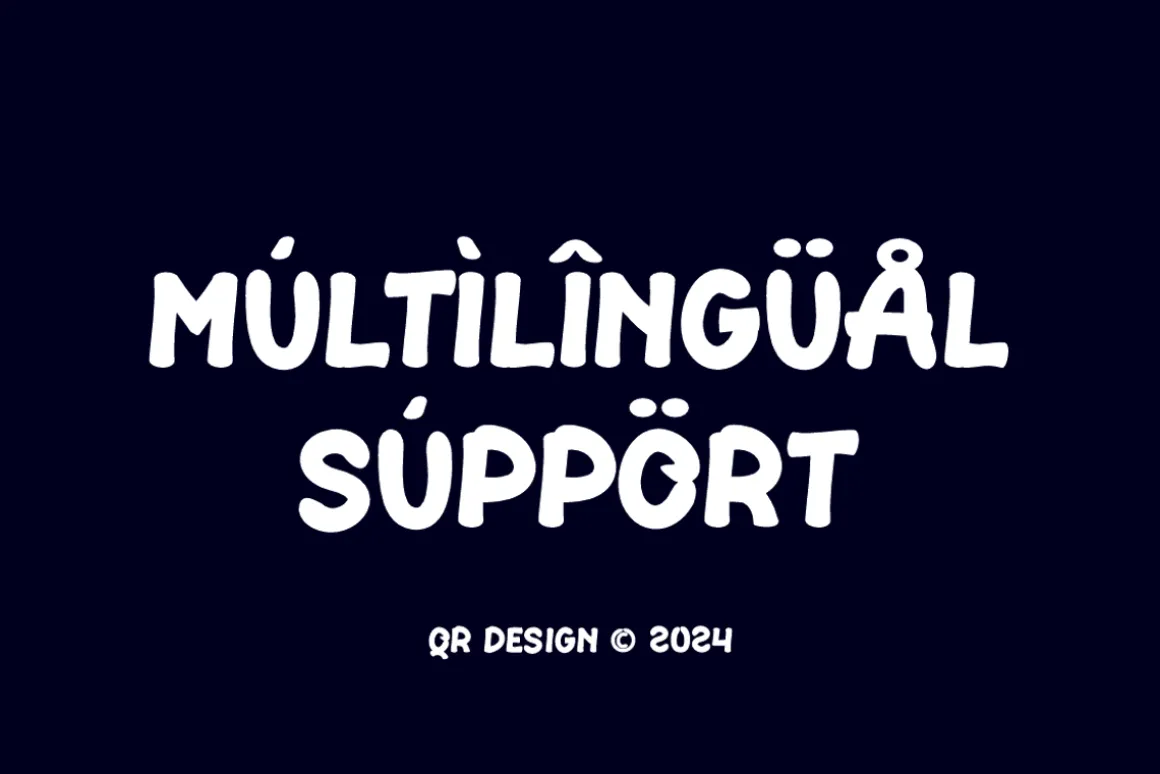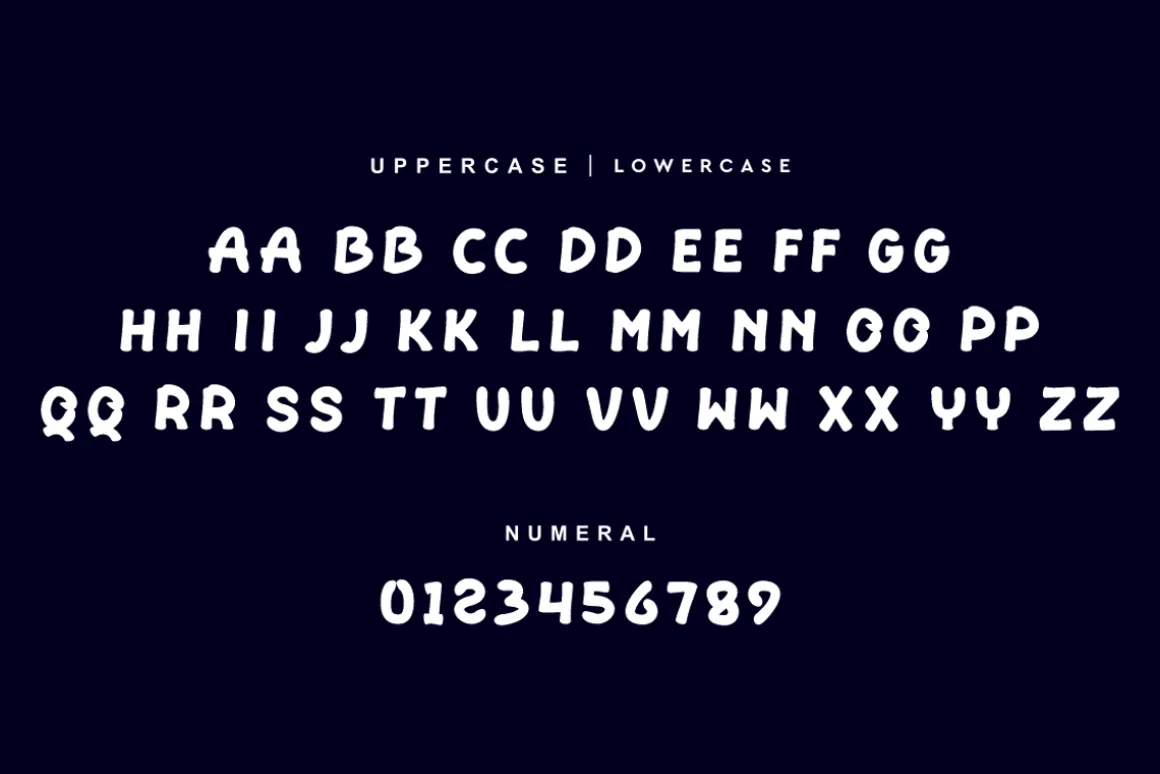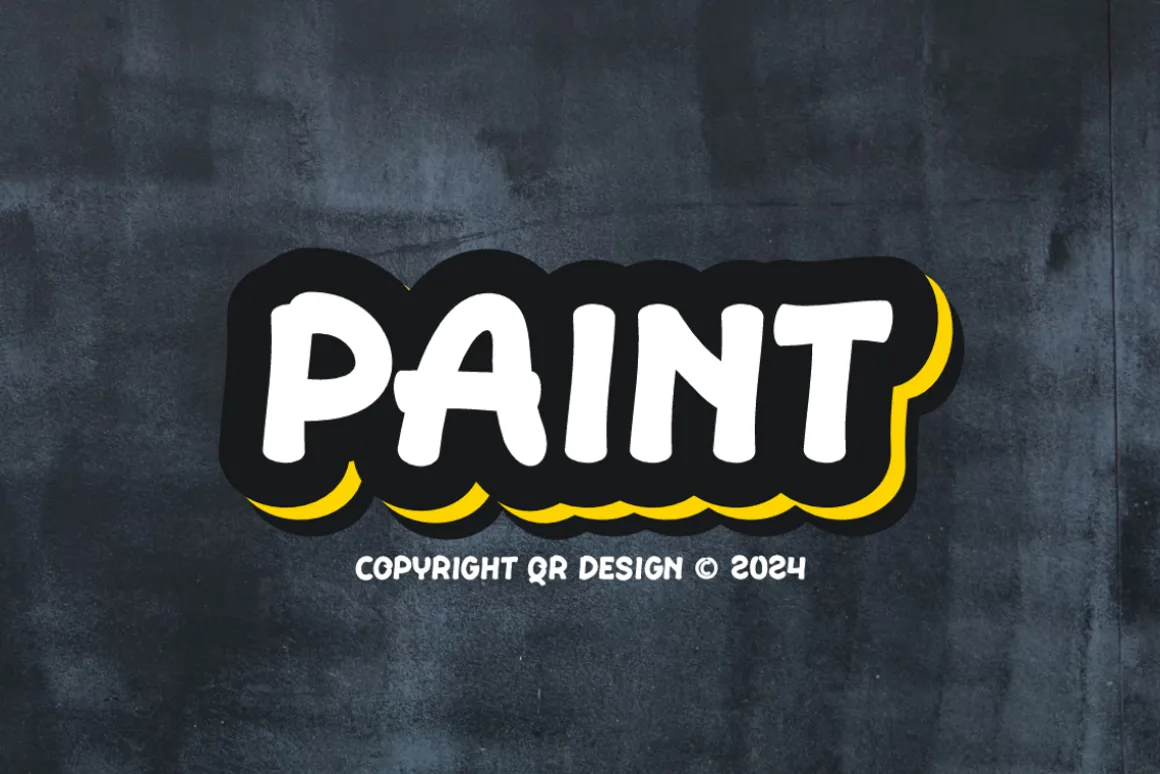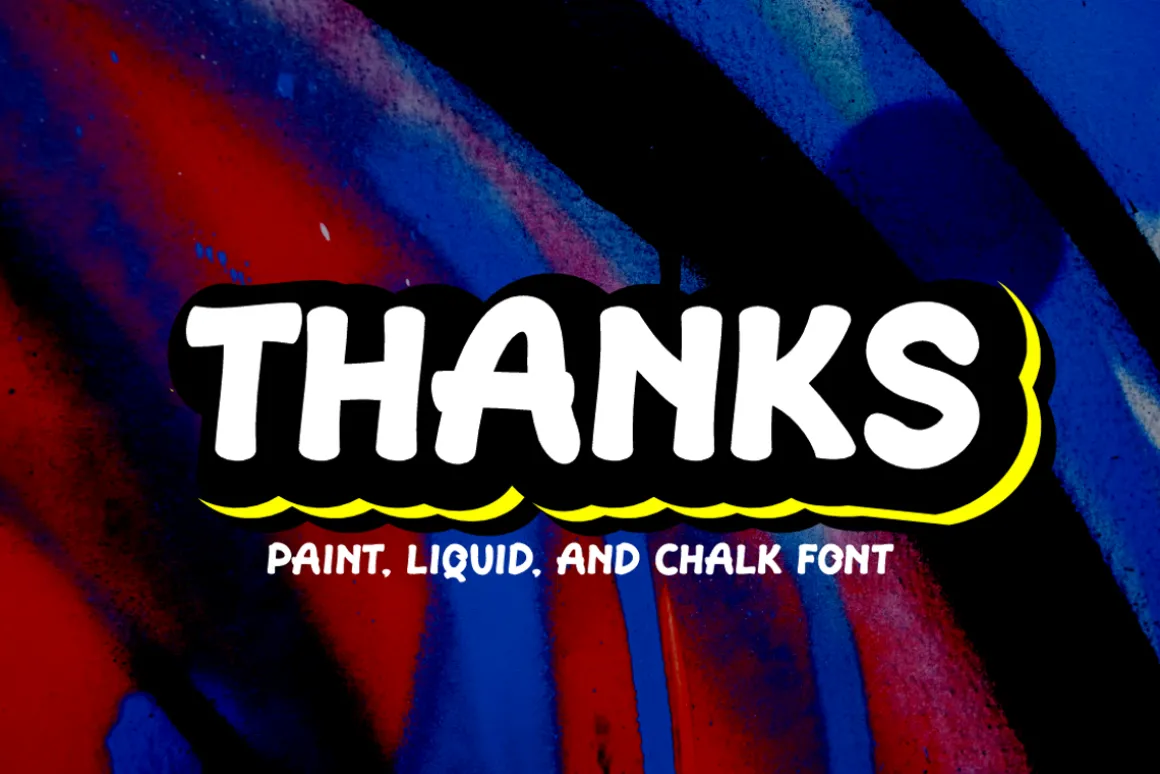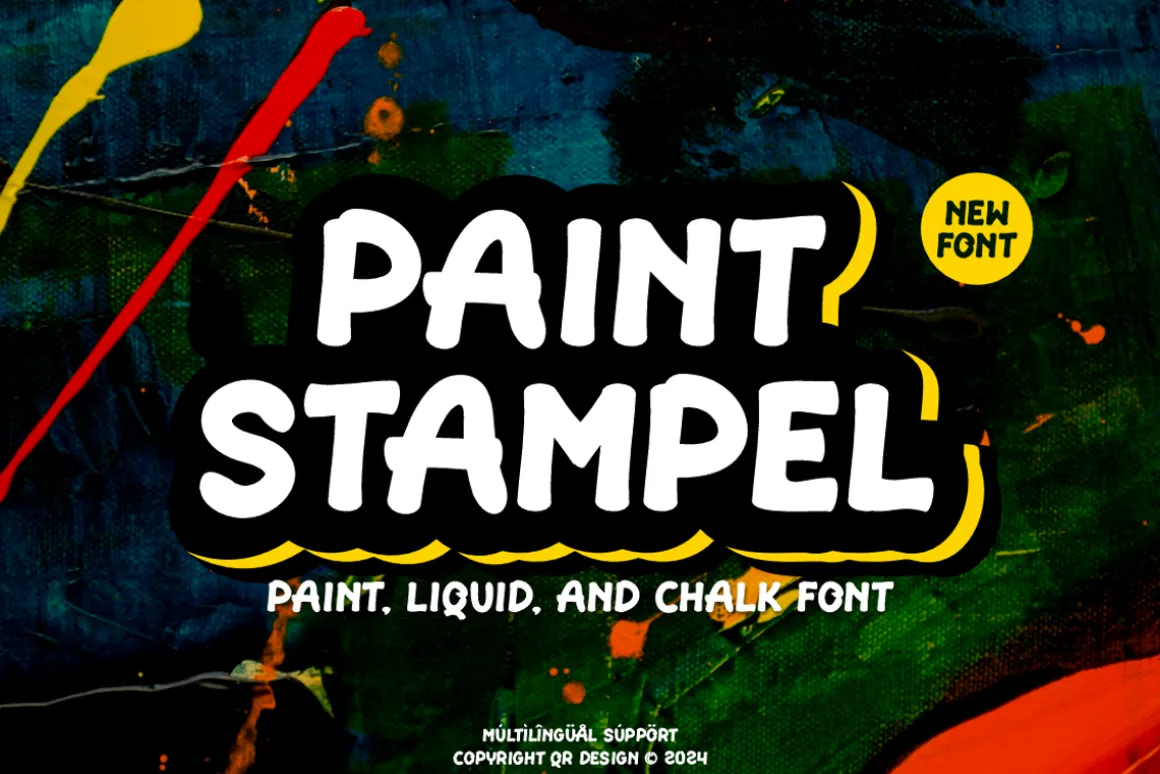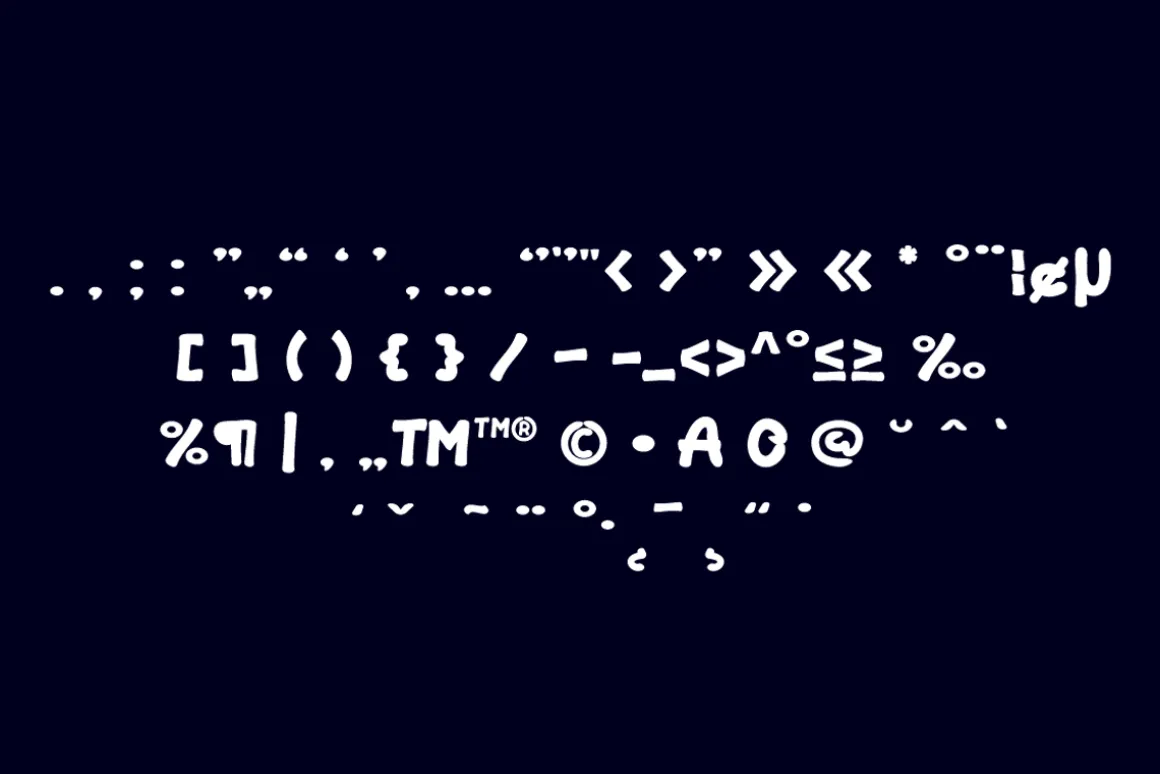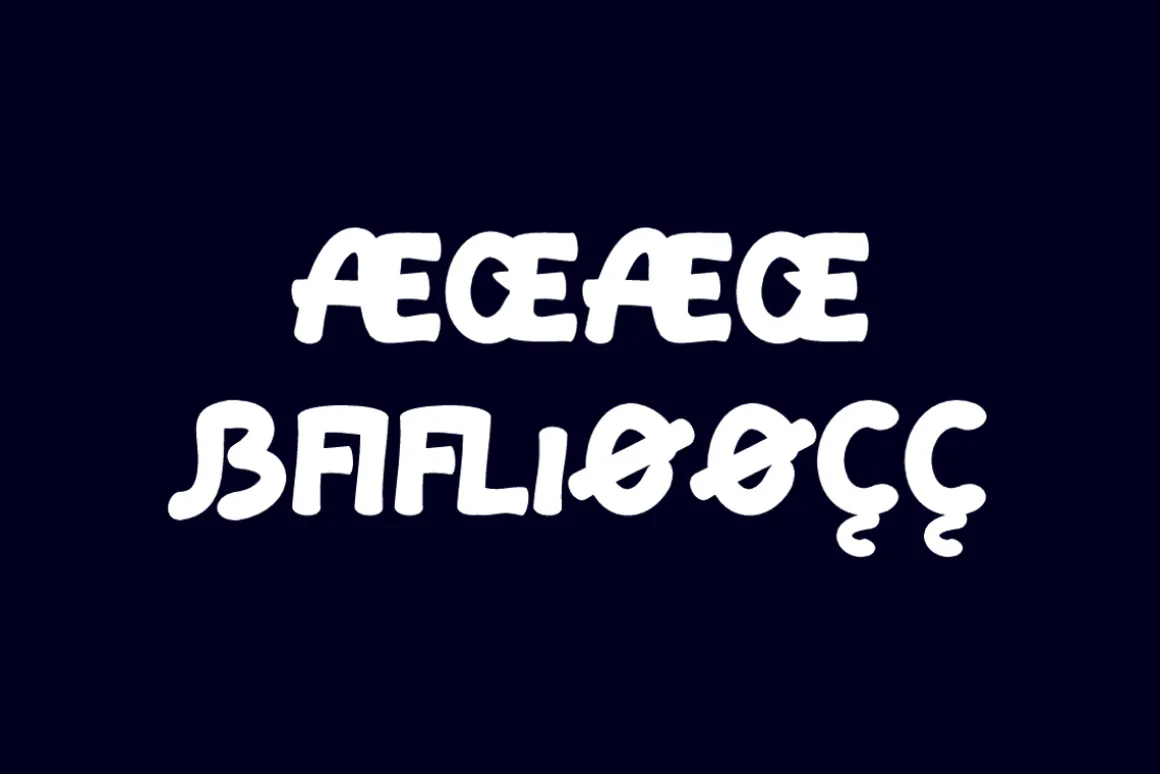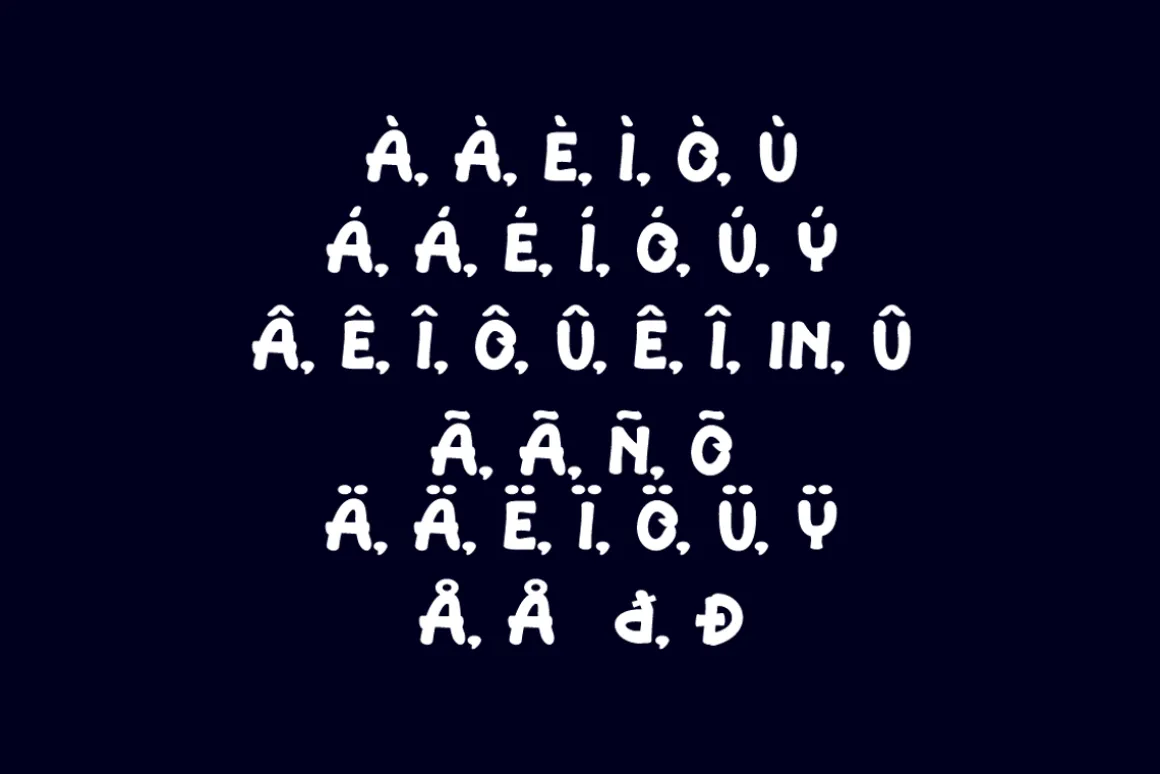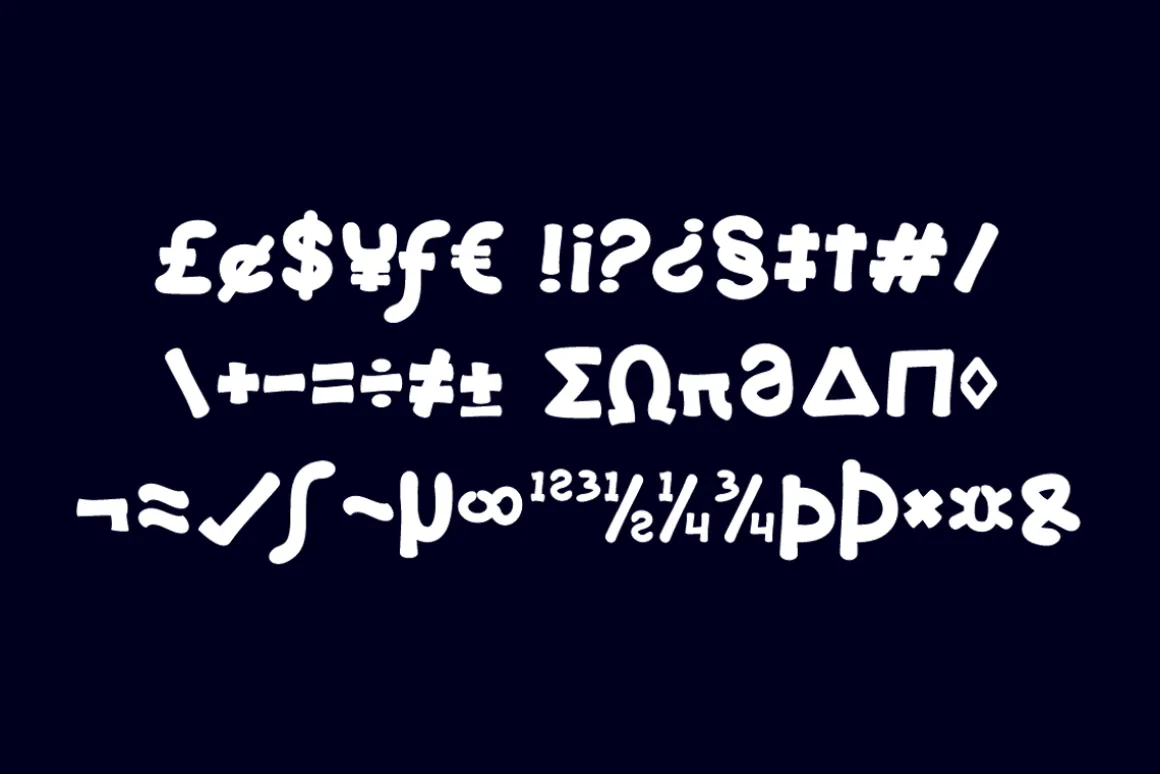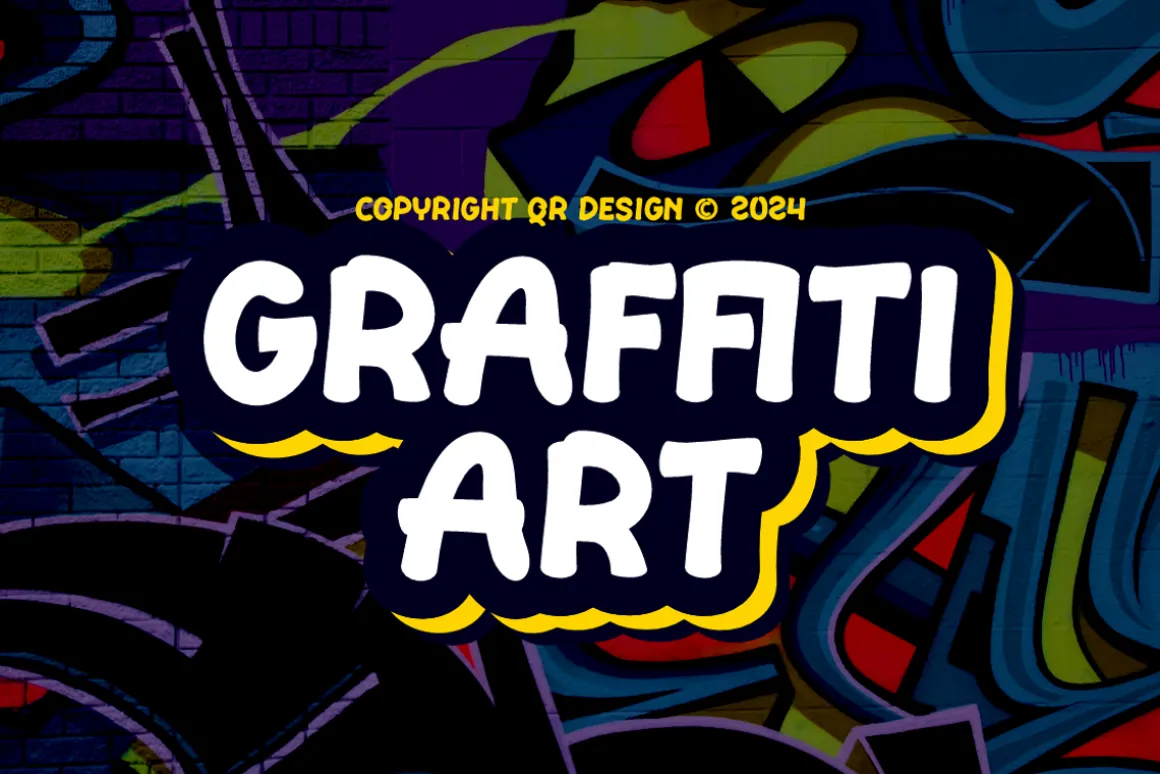
Paint Stampel Font is a hand drawn and authentic display font.The font is suitable for any branding project like poster, logo, sport, and many more.Outstanding in a wide range of contexts.